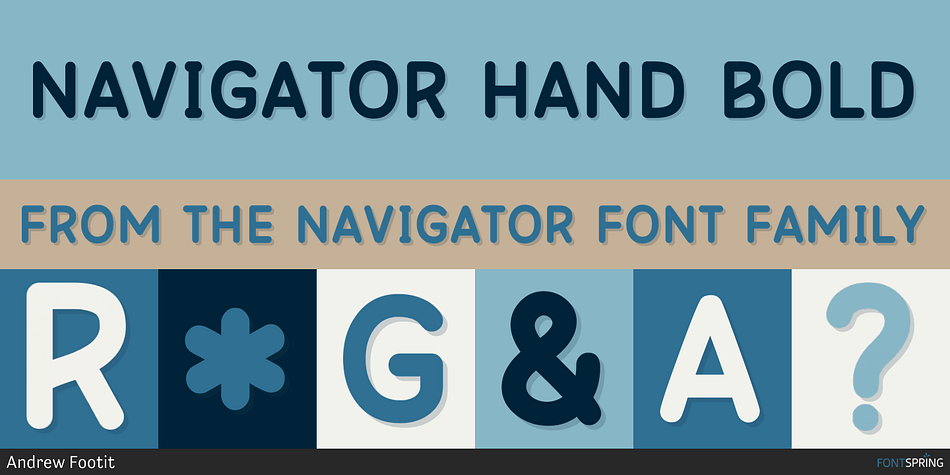
Navigator Hand Bold
Designed by Andrew Footit, Navigator is a western and hand display font family. This typeface has eight styles and was published by Andrew Footit.
The Navigator family is inspired by the early explorers, the early sailors with their old-style tattoos and the cowboys in the old west.
The Navigator family is inspired by the early explorers, the early sailors with their old-style tattoos and the cowboys in the old west. I mashed up these to styles to create the Navigator display family. It has a vintage feel with a more modern day approach.
Use the regular styles to give your artwork a more clean look and feel or the rough styles to take on the more vintage old-style. This family is great for display use on posters, packaging, editorial and logos. It is created with the designer in mind to have some fun and mix up some great looking Upper / Lower case combinations. The Navigator hand font is an informal, rounded sans-serif that works perfectly with the Navigator display fonts to create beautiful logo and type lockups.